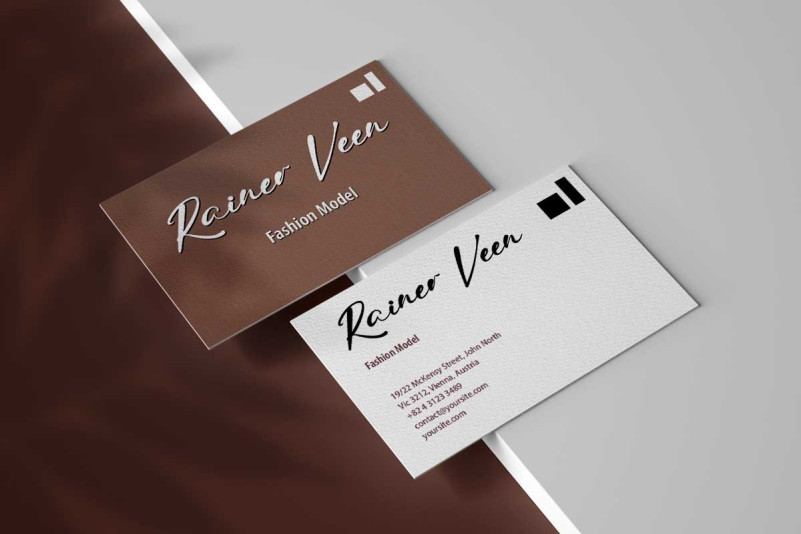
Julian Daniel Font
Julian Daniel Script Font is a calligraphy typeface that helps designers create beautiful compositions. It looks stunning on wedding invitations, presentations, quotes, greeting cards, logos, business cards, and every other design that needs a customized touch.